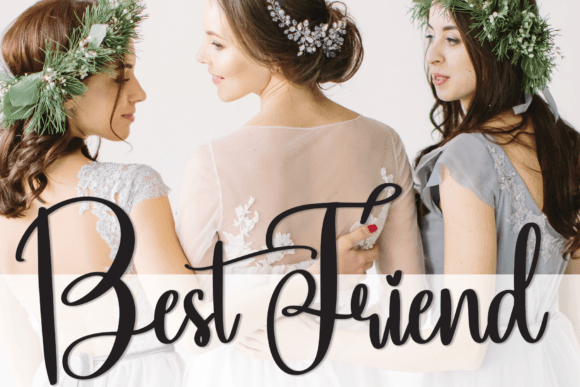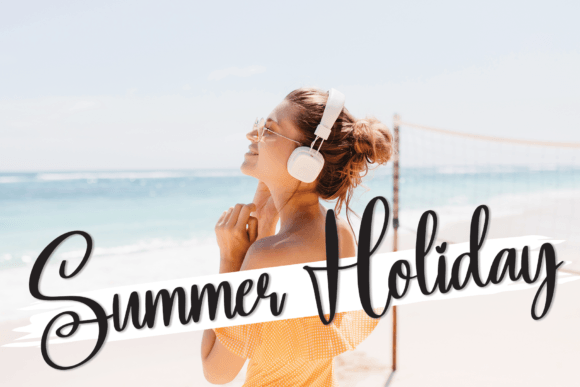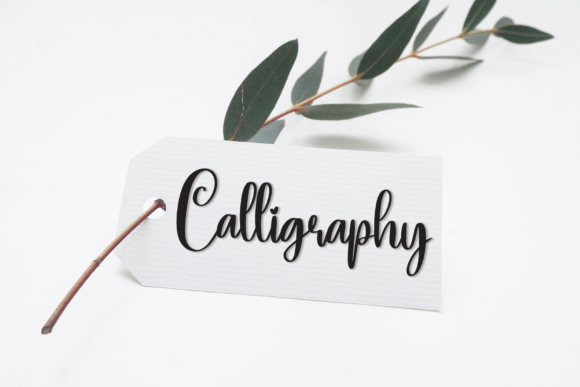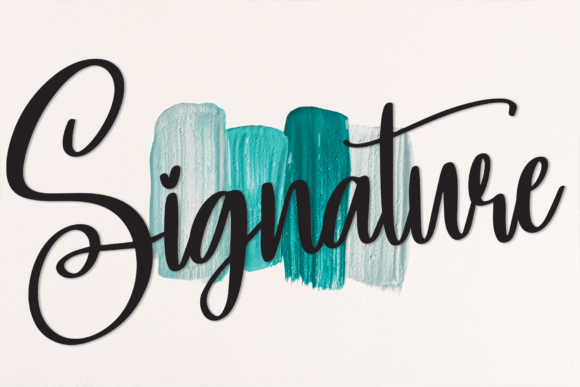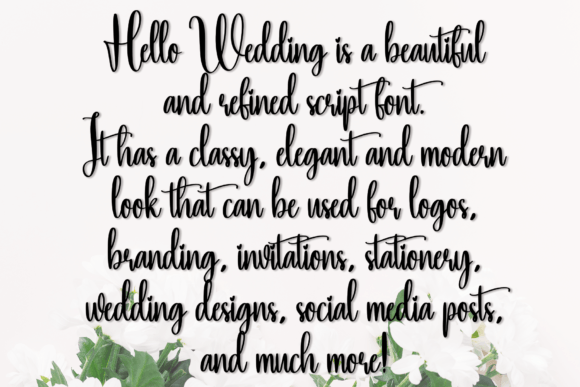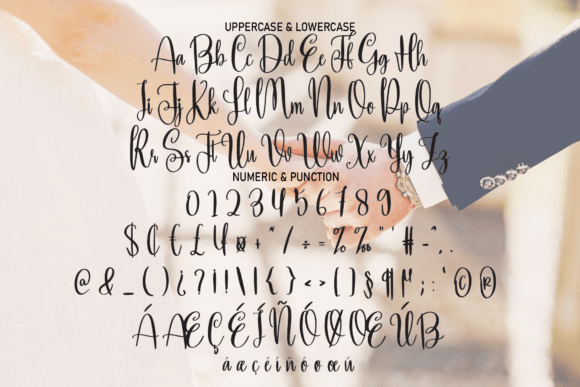
The Perfect Font for a Dream Wedding
Have you ever found yourself sitting in a cozy coffee shop, surrounded by blank paper and a million ideas floating in your head? That’s exactly where the magic happens – in those moments of pure creativity. As a designer, you know how crucial the right font can be in bringing your vision to life. And when it comes to wedding invitations, cards, or any other design that needs a touch of whimsy, you’ll want to make sure you’re using the perfect font to convey the love and joy.
Enter the Hello Wedding Font, a sweet and friendly handwritten font that’s sure to add a fresh and playful touch to any design. This font is not just a pretty face – it’s a valuable tool for designers who want to create unique and memorable wedding designs that leave a lasting impression. With Hello Wedding Font, you’ll be able to add a personal touch to your work and make your clients’ special day even more unforgettable.
Hello Wedding Font Key Features
- Font Family: A unique and elegant script font designed for wedding invitations and other special occasions.
- Unique Characteristics: The font features beautiful, flowing connections between letters, making it perfect for creating a romantic and elegant atmosphere.
Hello Wedding Font Review
As a designer, I’ve had the chance to work with a lot of fonts, and the Hello Wedding Font is definitely a unique one. Here’s my honest review.
- The Hello Wedding Font has a beautiful, elegant script that’s perfect for wedding invitations and other formal events.
- The font is highly customizable, with a range of styles and sizes to choose from.
- The font is also very easy to read, even at smaller sizes.
- The font is only available in a few languages, which may be a limitation for designers who work with clients from different regions.
- The font’s script style can be a bit overwhelming for larger blocks of text.
Overall, I think the Hello Wedding Font is a great choice for designers who need a high-end, elegant script font for their projects. While it has some limitations, the font’s unique style and high level of customization make it a worthwhile investment for many designers.
Getting the Most Out of Hello Wedding Font
For optimal results, use Hello Wedding Font in combination with other wedding-themed elements, such as floral patterns, lace textures, or vintage graphics.
Hello Wedding Font is ideal for wedding invitations, save-the-dates, wedding programs, and other wedding stationery. It’s also suitable for wedding websites, social media graphics, and other digital wedding materials.
Alternatives to “Hello Wedding Font” for Designers
Great Vibes is a beautiful, elegant script font perfect for wedding invitations and other special occasions. It’s ideal for those looking for a classic, sophisticated look. Compared to Hello Wedding Font, Great Vibes has a more refined and delicate feel, making it suitable for high-end weddings or events.
Pacifico is a modern script font that exudes a relaxed, beachy vibe. It’s perfect for destination weddings or outdoor events. Compared to Hello Wedding Font, Pacifico has a more casual and laid-back feel, making it ideal for bohemian or rustic-themed weddings.
Carolyna Pro is a elegant and sophisticated script font that’s perfect for formal weddings or events. It’s ideal for those looking for a classic, timeless look. Compared to Hello Wedding Font, Carolyna Pro has a more refined and luxurious feel, making it suitable for high-end weddings or corporate events.
No, the Hello Wedding Font is designed primarily for English language use. While it may support some Latin-based languages, it is not optimized for languages that require non-Latin scripts or complex typography.